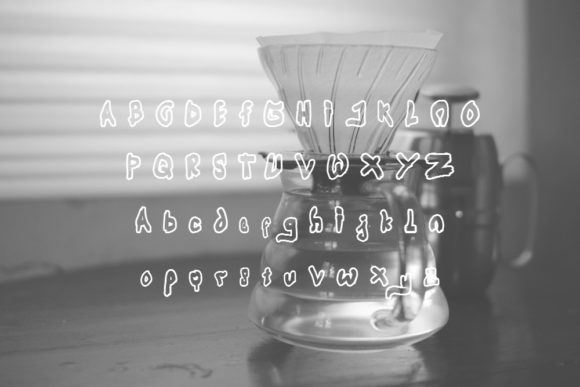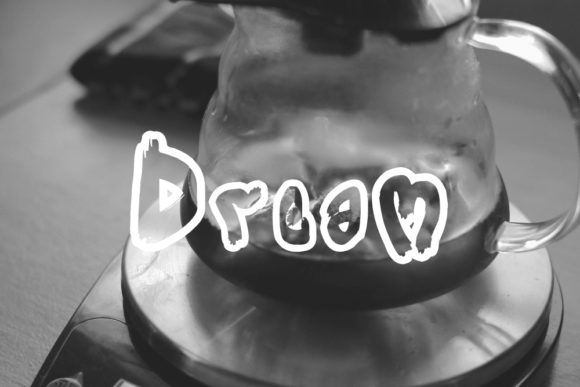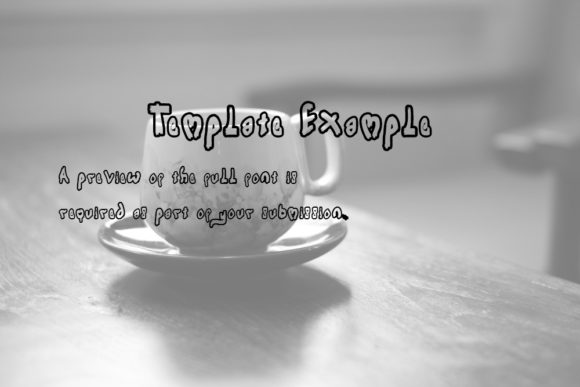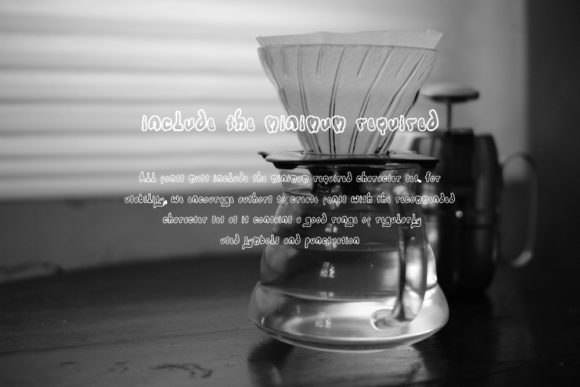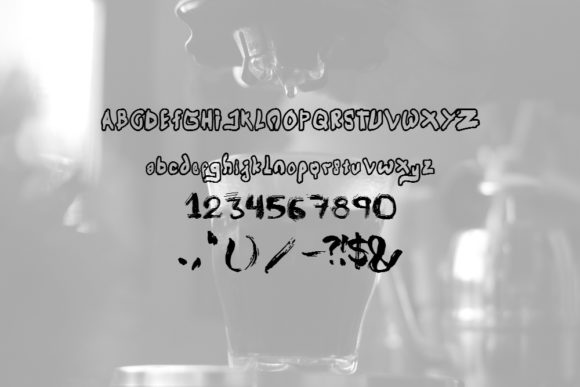
Introduction to Sapoetry Font
Sapoetry is a particularly unique display font.
A little bit quirky, this font looks incredibly adept on a wide variety of contexts The only limit is your imagination.